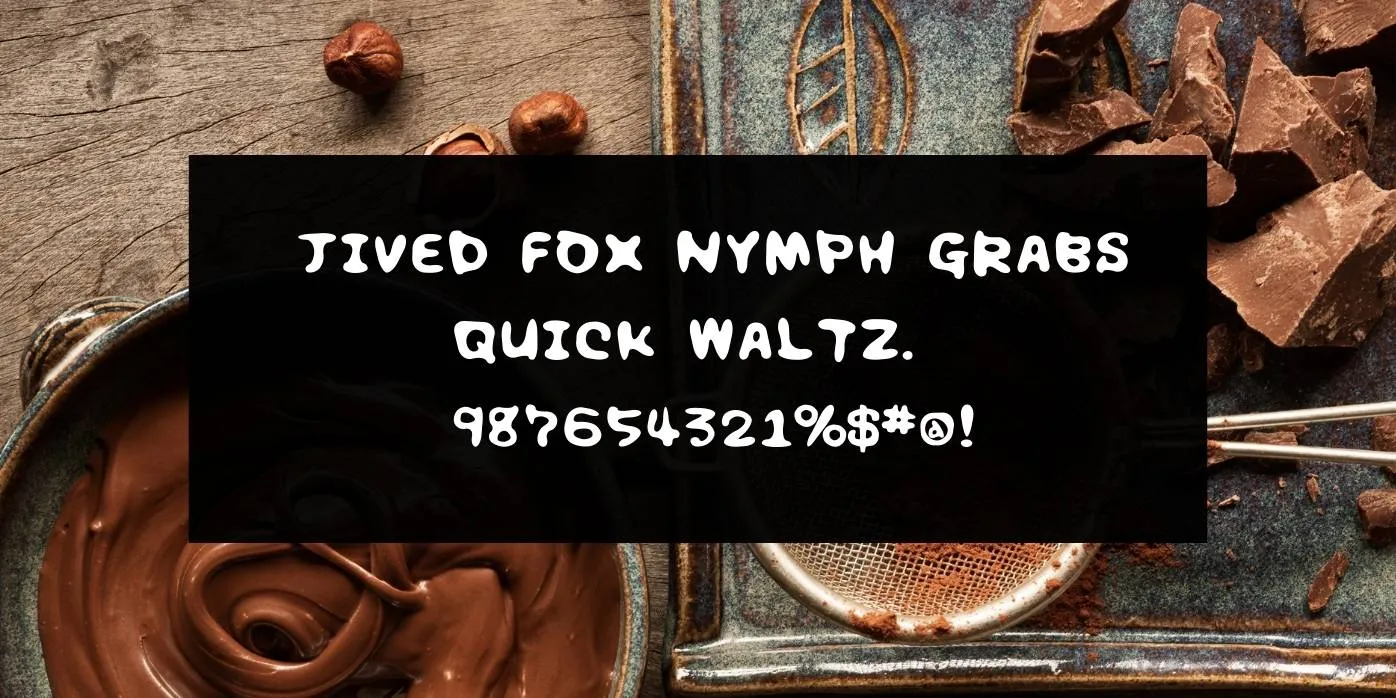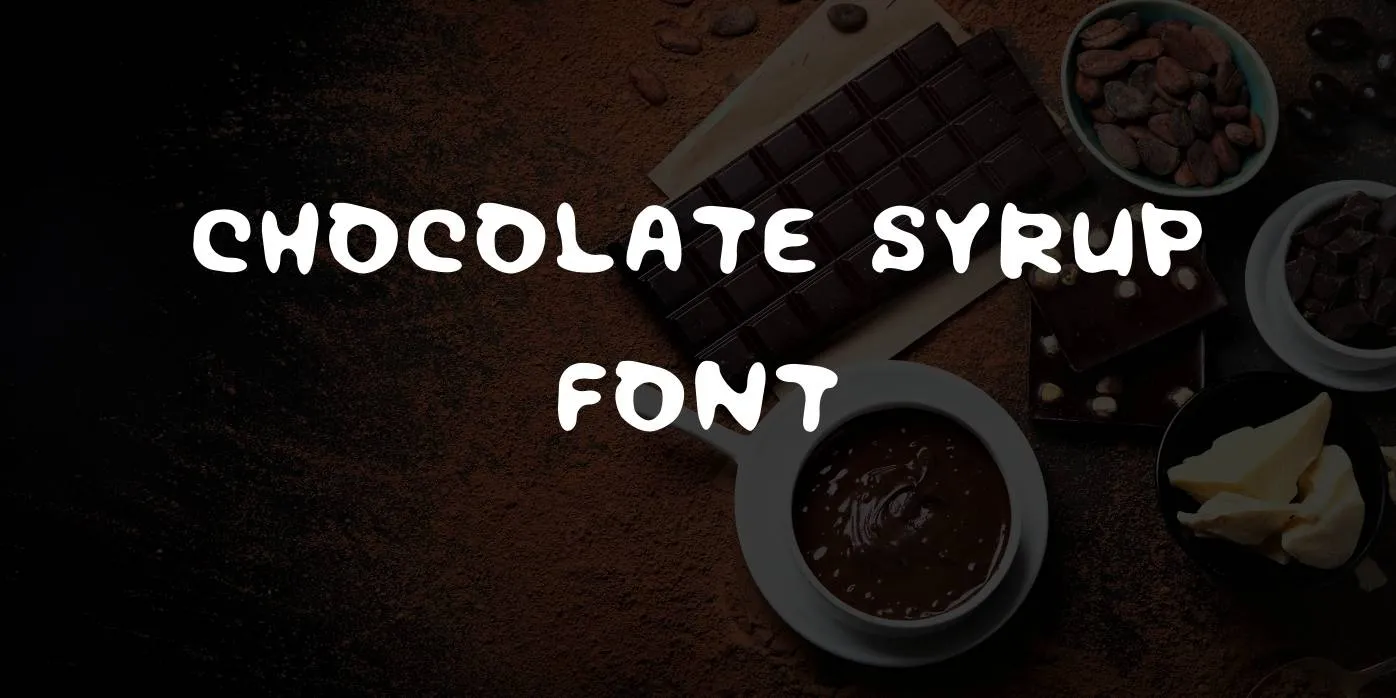
Chocolate Syrup Font
Chocolate Syrup Font belongs to a fancy family and was designed by Colorful Typhoon. The design of this font was inspired by a chocolate syrup bottle. You can use this font for various purposes such as headlines, posters, and logos. It is well suitable for CSS and SVG.
This classy typeface has four styles namely Regular, Bold, Italic, and Bold Italic. This stylish font features sharp edges and round curves which give it a unique look. The font also supports a Latin character set. The copy-and-paste function of this typeface is classic.
Chocolate Syrup Typeface is a great choice for those who are looking for a stylish and versatile Typeface. It has a large X height and is rounded in the corner. You can use porkys font which has the same style and characters as this one. The generator tool of this typeface is well-suitable for different types of graphic designs.